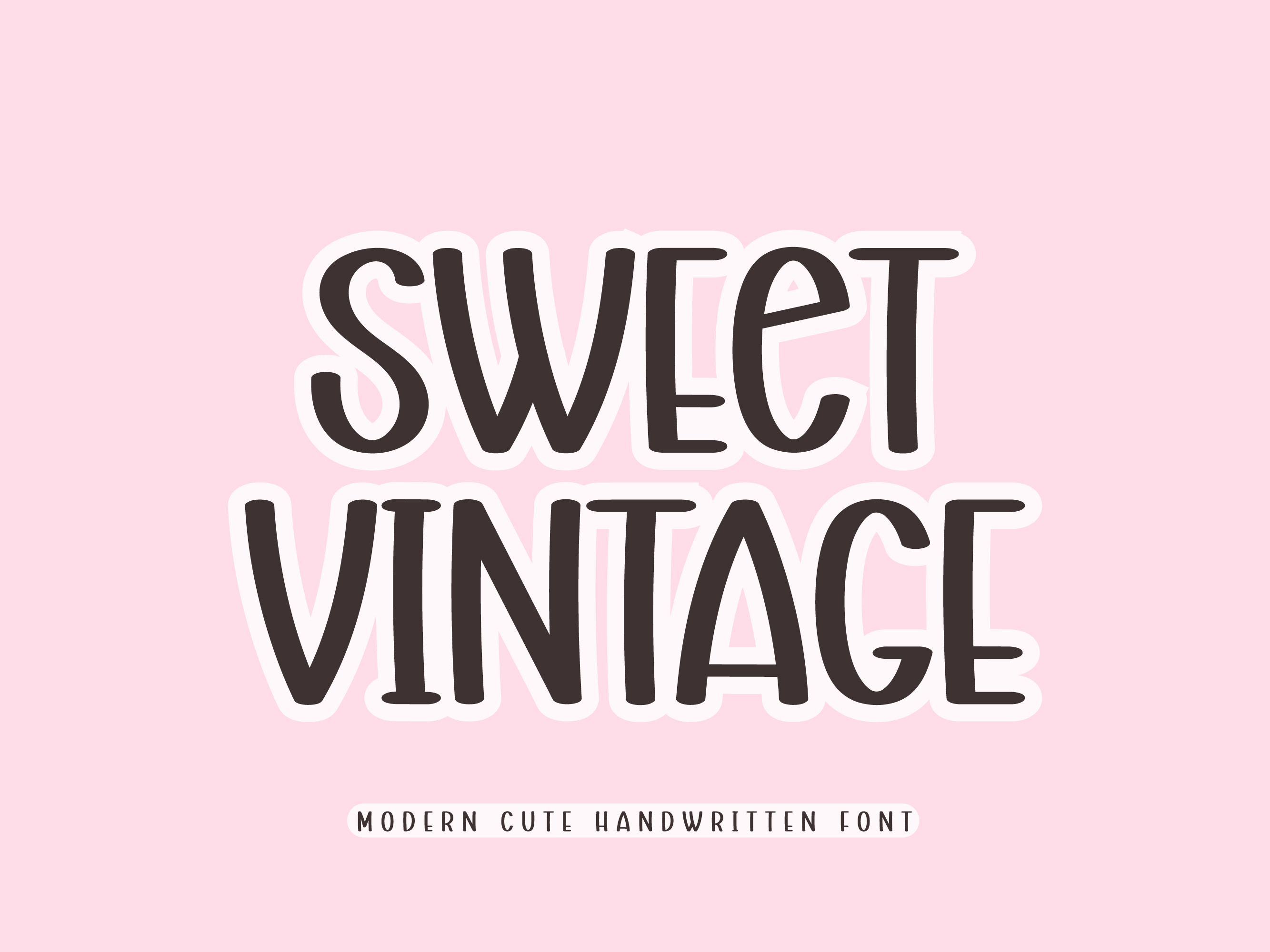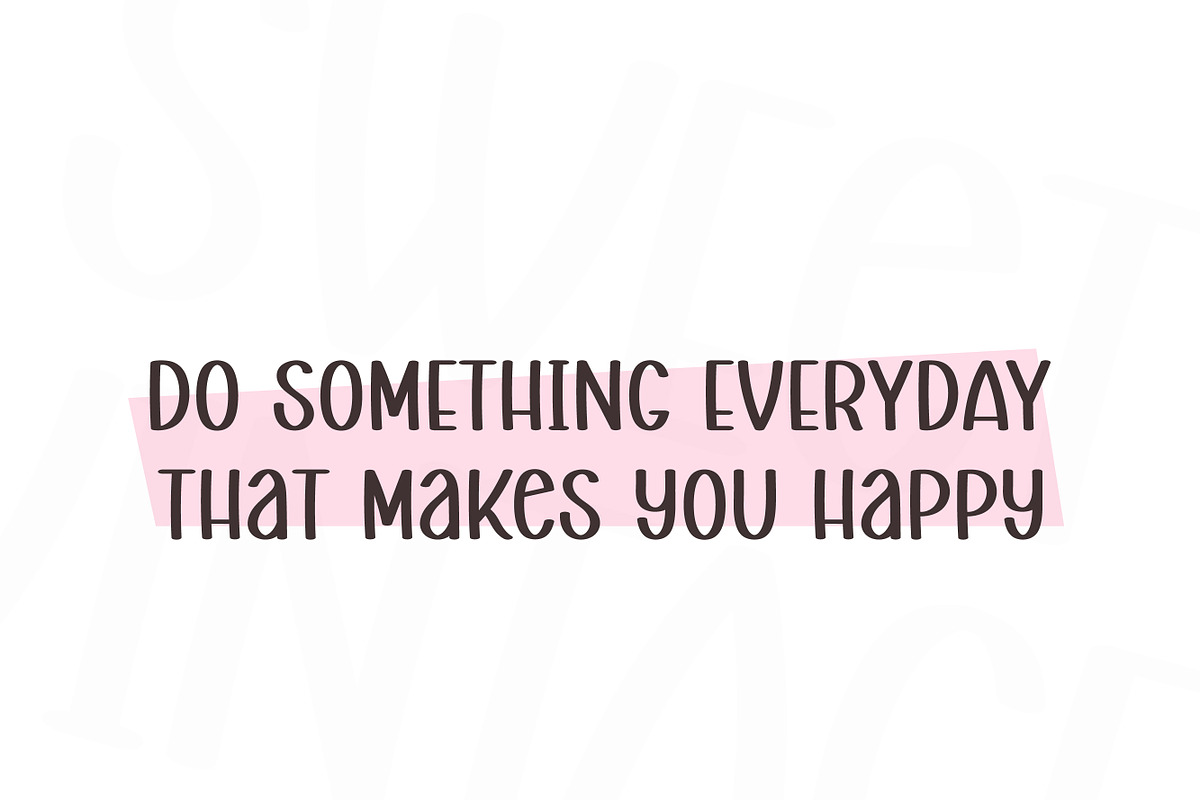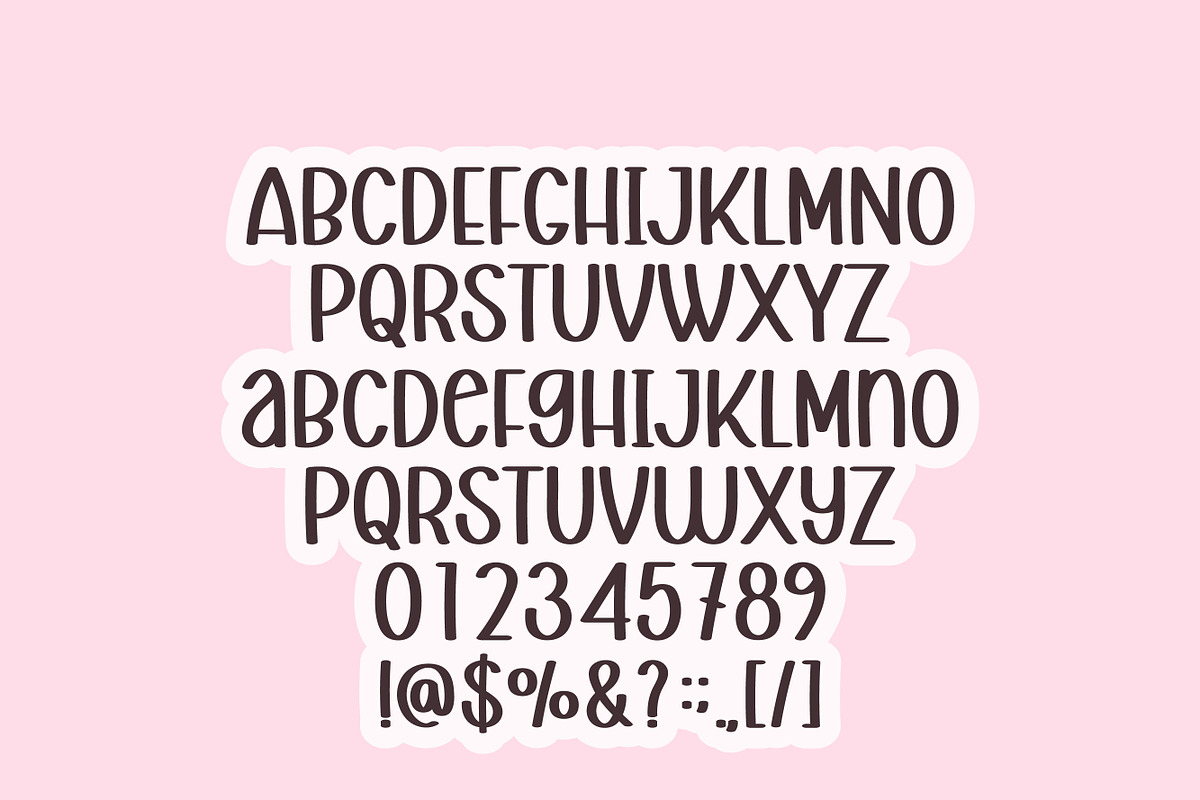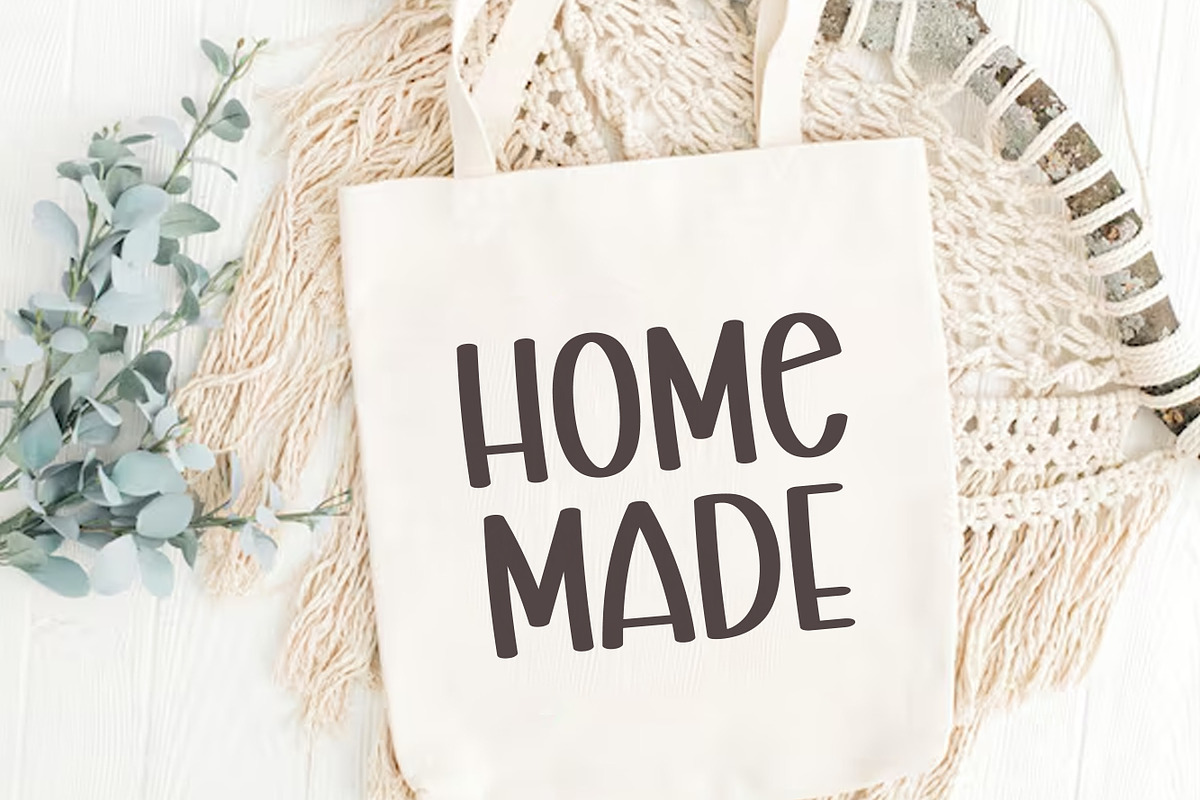
Sweet Vintage - Modern Font
Sweet Vintage is an elegant and delicate handwritten typeface. This is perfect for your various design needs, such as logos and branding, social media posts, advertisements, posters or any design that needs a touch of playful mystery.